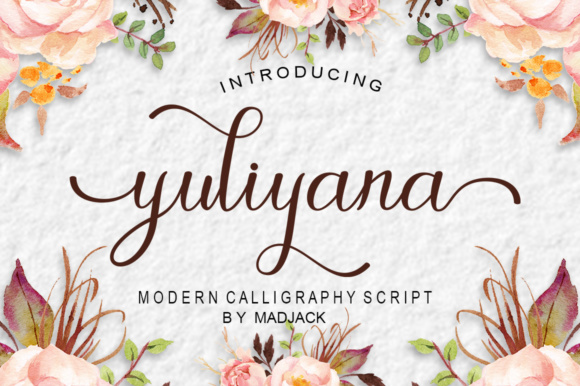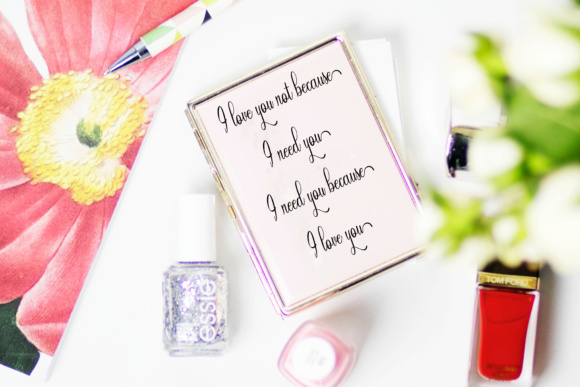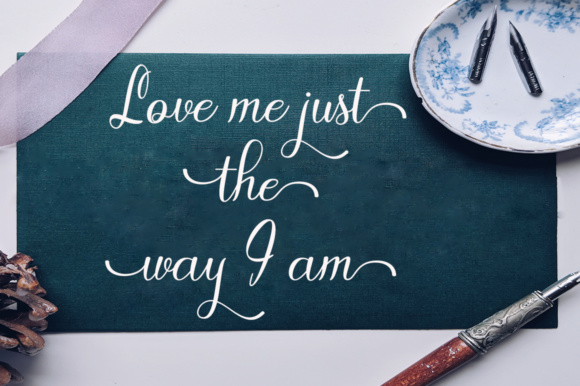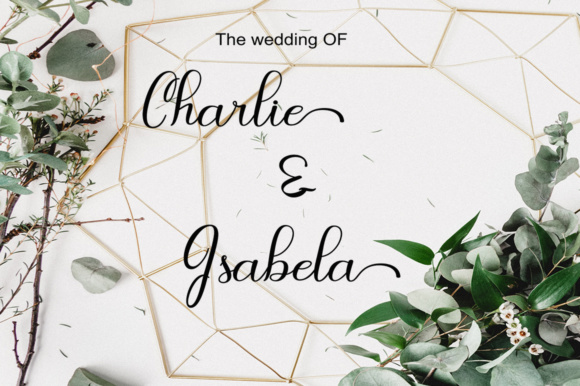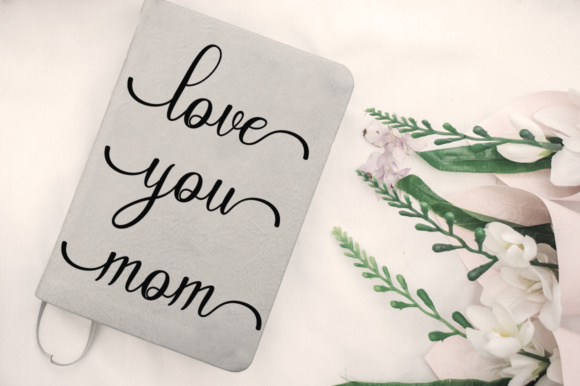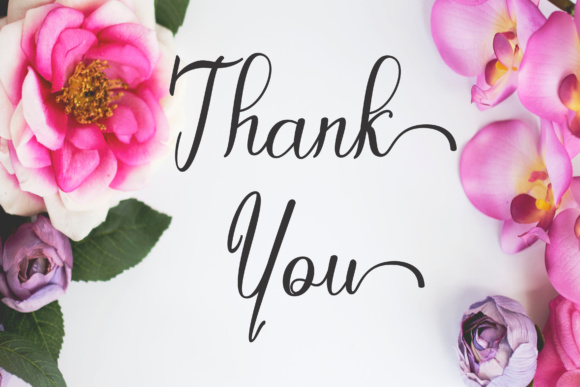
HomeScript FontsYuliyana Script Font Script Fonts Yuliyana Script Font FacebookXPinterestWhatsApp Yuliyana Script Font Poster 2 Yuliyana Script Font Poster 3 Yuliyana Script Font Poster 4 Yuliyana Script Font Poster 5 Yuliyana Script Font Poster 6 About Yuliyana Script Font The Yuliyana is a modern calligraphy script. It looks absolutely beautiful with its swashes and elegance. DOWNLOAD NOW People also explored SuperTrooper Hello Daddy Font Gregson Font New Mexico Font Magnolia Font Scotch Micro Awakening Font Kerberos Fang Black Sword Font 298 0 TagsYuliyana Script Font Previous articleEllie Gant Family FontNext articleSmoothline Script Font LEAVE A REPLY Cancel reply Comment: Please enter your comment! Name:* Please enter your name here Email:* You have entered an incorrect email address! Please enter your email address here Website: Save my name, email, and website in this browser for the next time I comment. Personal Use Free Earwig Factory Personal Use Free Read more about this font Ontel Personal Use Free Read more about this font New System Personal Use Free Read more about this font Krase Personal Use Free Read more about this font BLOG Top 7 Google Fonts Alternatives for Faster and Privacy-Friendly Web Design (2025) Top 7 Google Fonts Alternatives for Faster and Privacy-Friendly Web Design (2025) When it comes to web typography, Google Fonts has long been the go-to... Exploring Font Trends Using Fonts in Digital Marketing: Tips to Strengthen Your Brand Identity Best Fonts for T-Shirt Design – Top 2025 Picks